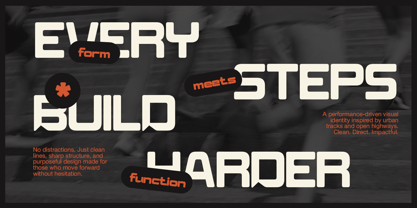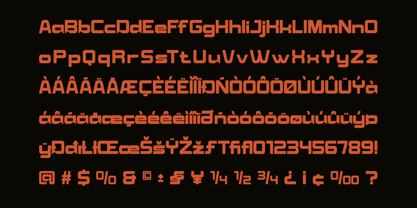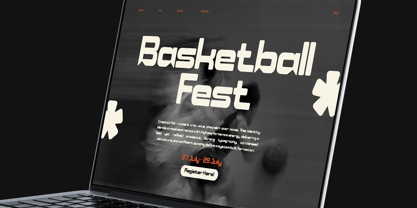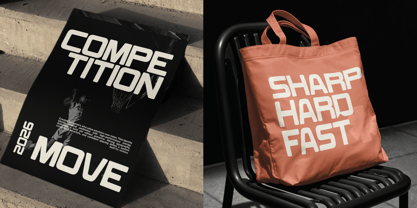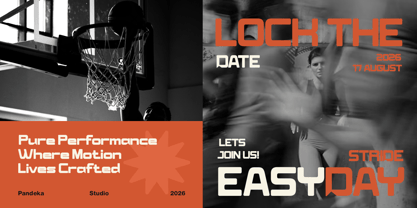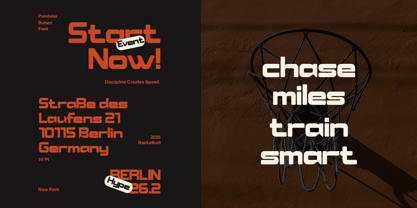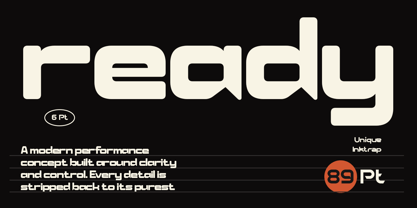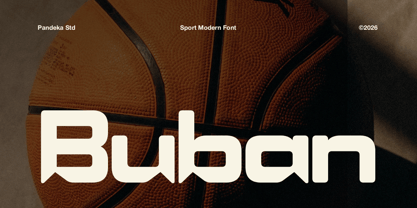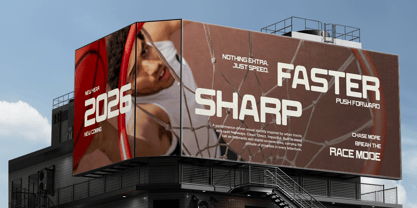
Buban
The Buban Font Family was designed by Sagara Nararya and published by Pandeka Studio. Buban contains 2 styles and family package options. More about this family
Buban is built for speed, precision, and bold visual impact. This modern sport display font features strong geometric letterforms with rounded corners and a dynamic athletic style. Its clean structure delivers excellent readability while creating a powerful presence across both digital and print designs.
Available in 2 styles: Regular and Oblique, Buban works seamlessly for sports branding, fitness campaigns, esports graphics, racing posters, event promotions, gaming interfaces, product packaging, social media content, web headers, logos, marketing materials, and modern editorial layouts. It also includes multilingual support, making it suitable for international creative projects.
• 2 Styles: Regular and Oblique
• Full Character Set: Uppercase, lowercase, numbers, symbols, and punctuation